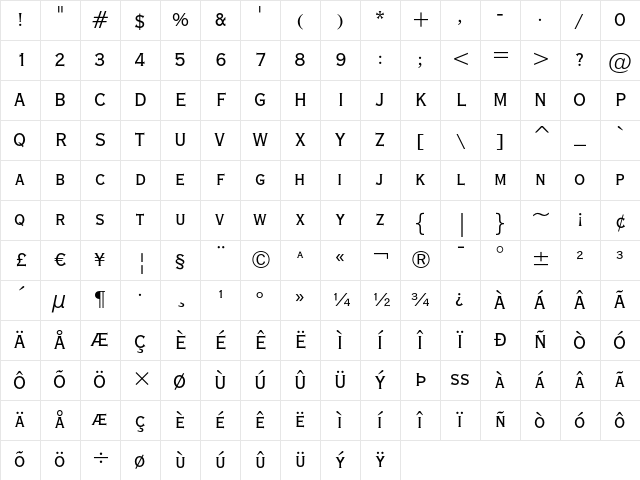
Copperplate Gothic Condensed
Style: Condensed
Copperplate Gothic Family
Copperplate Gothic Condensed
Complete Copperplate Gothic Condensed glyph index. Displaying only characters natively supported by Copperplate Gothic Condensed font.
Design Context for Copperplate Gothic
Copperplate Gothic takes a clean, functional approach - its unadorned letterforms prioritise legibility and work reliably across screen and print environments. Its narrow stance lets it pack a punch even in space-constrained designs.